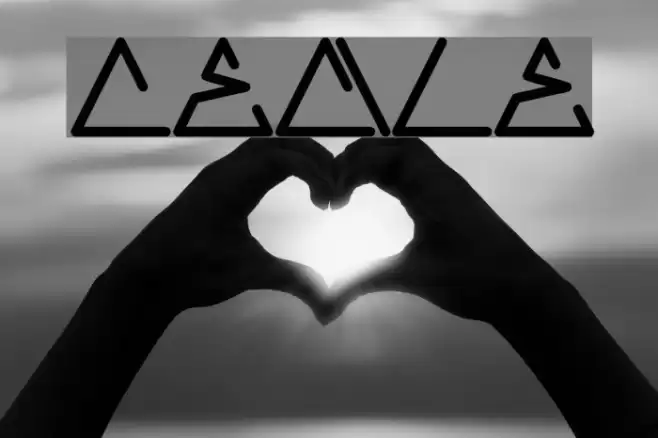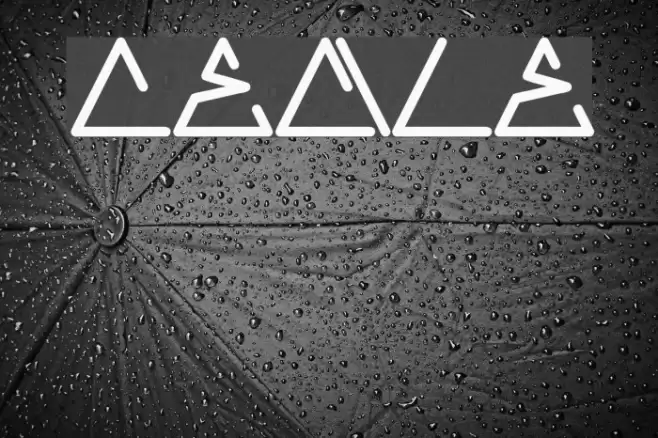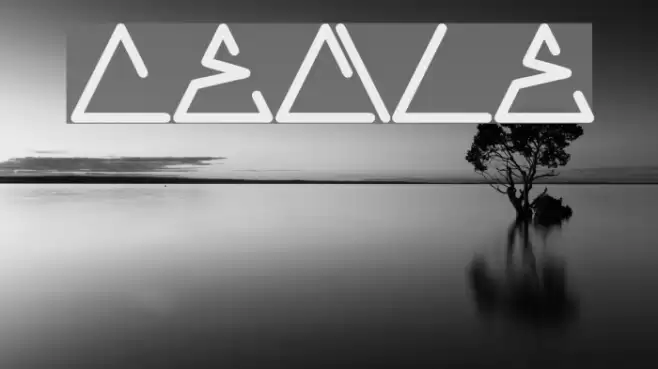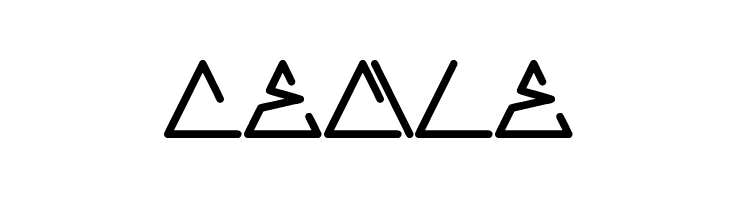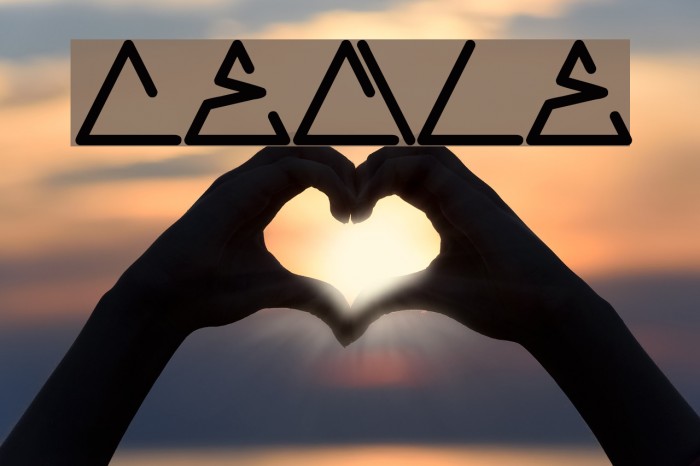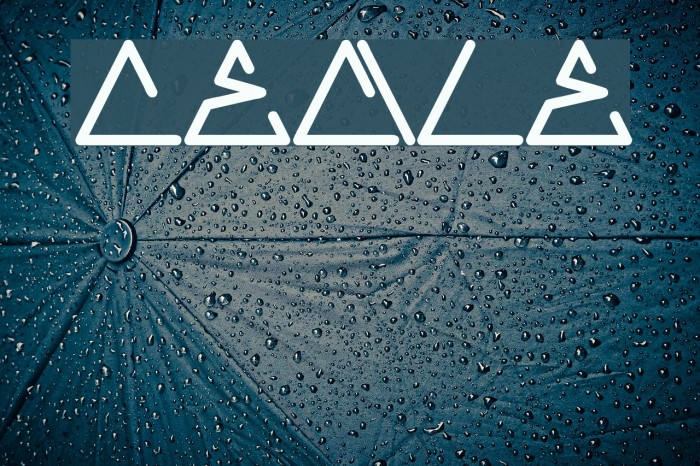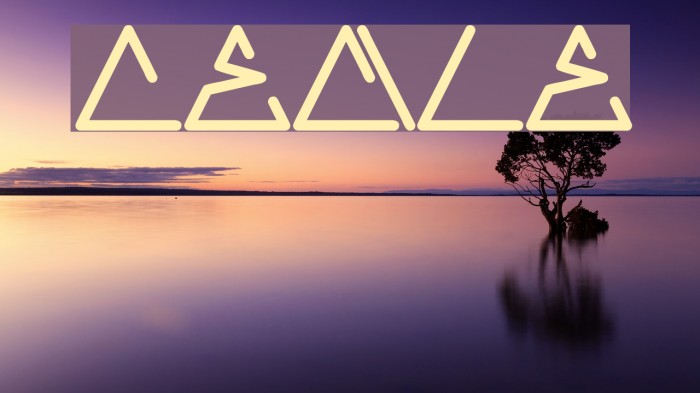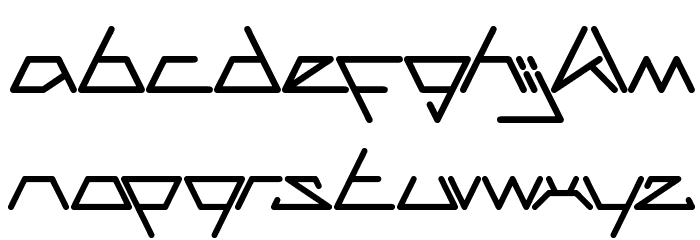
CECILE Font
CECILE Description
This font features a unique, geometric design with angular lines and sharp edges, creating a futuristic and tech-inspired appearance. Each character is crafted with precision, utilizing a combination of straight lines and acute angles to form a cohesive and visually striking alphabet. The uppercase and lowercase letters maintain a consistent style, while the numerals and special characters blend seamlessly into the overall aesthetic. The font's distinct style makes it ideal for projects that require a modern and innovative look.
A futuristic, geometric font with angular lines and sharp edges from Uncategorized fonts.
- Proposed Projects: Ideal for tech branding, sci-fi themed designs, video game interfaces, and modern art projects.